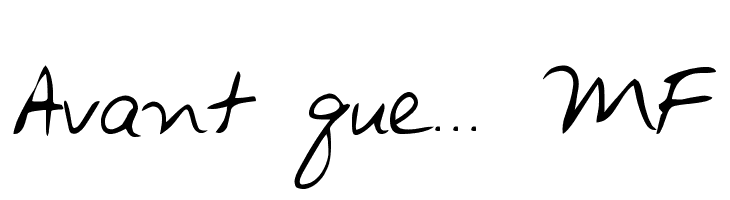
A playful, artistic script font with fluid, connected letterforms and medium contrast.
A bold, handwritten font with a playful and casual style.
A playful, handwritten font with fluid and dynamic strokes.
An artistic, cursive script font with a calligraphic flair.
A cursive font with sharp, angular elements and elegant flow.